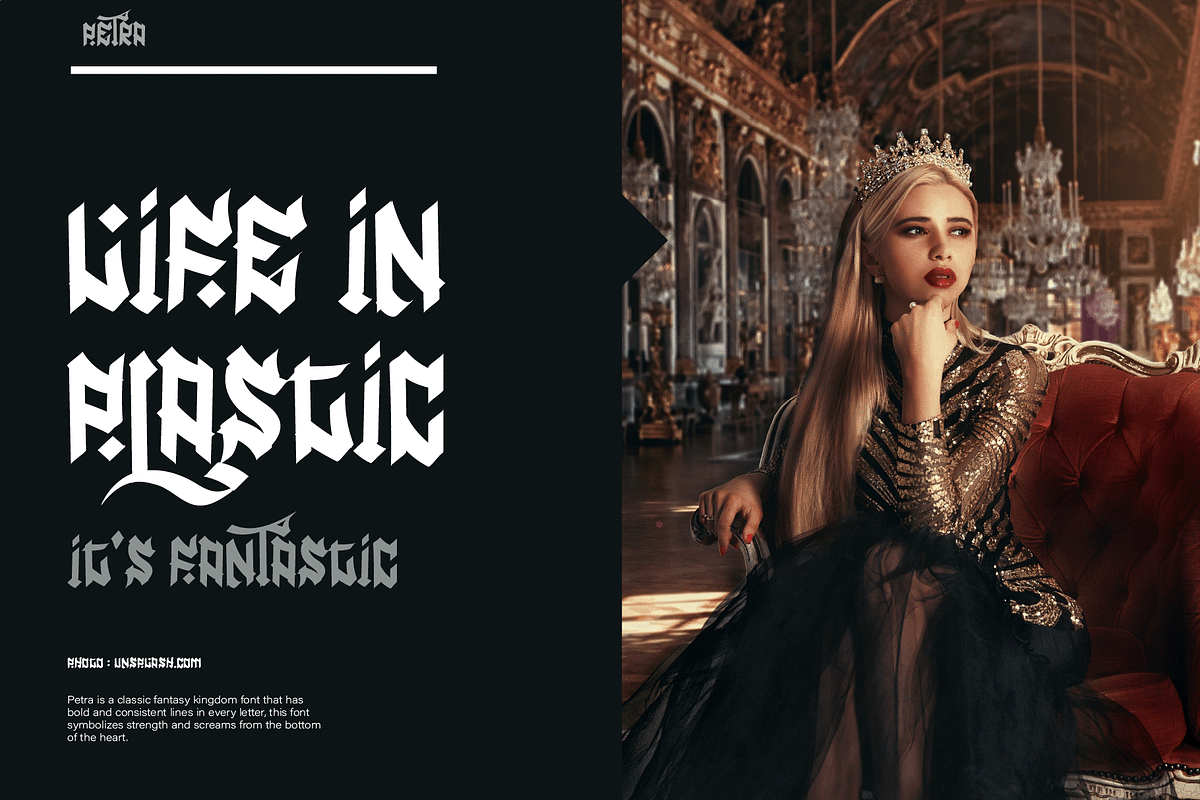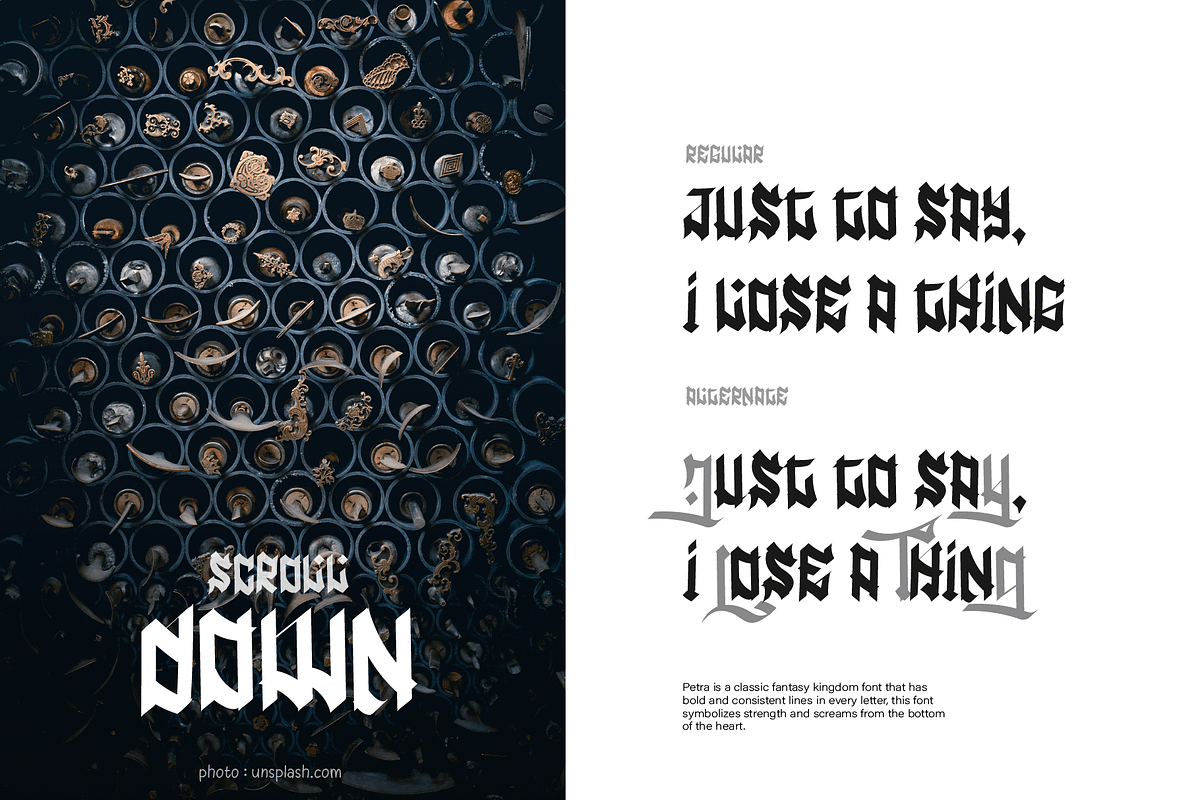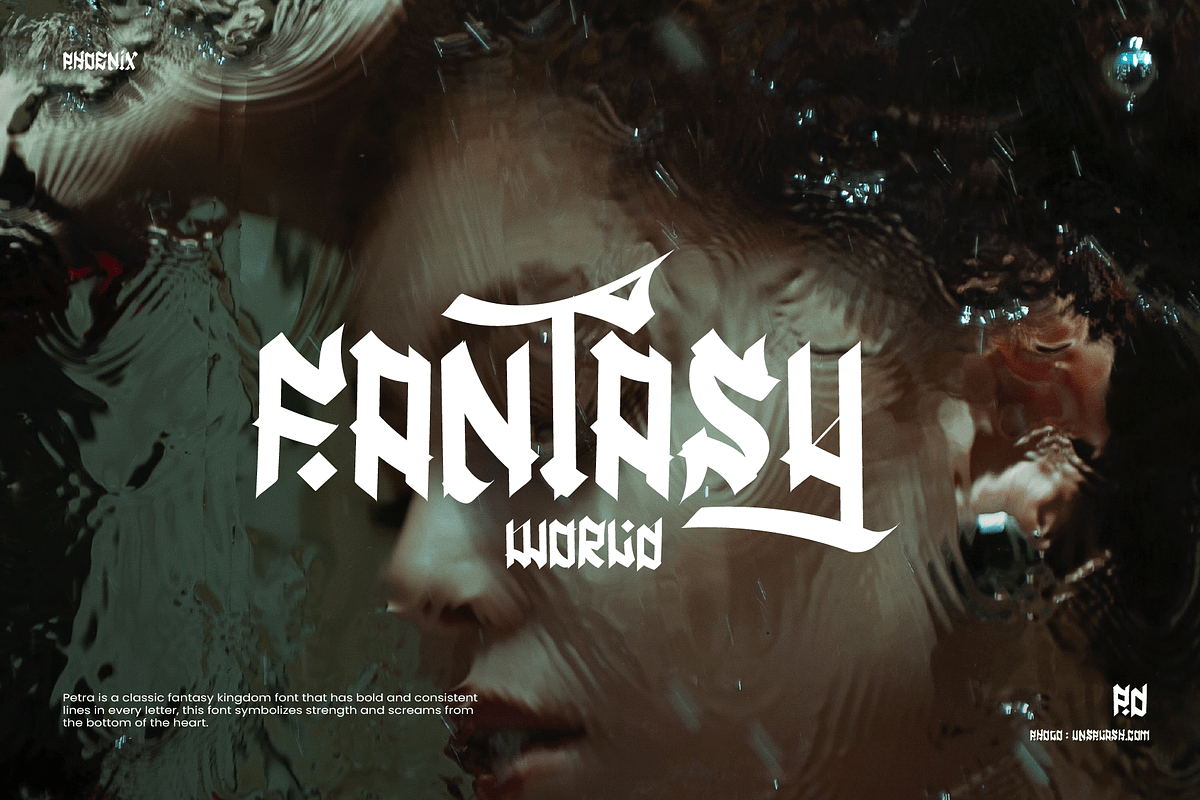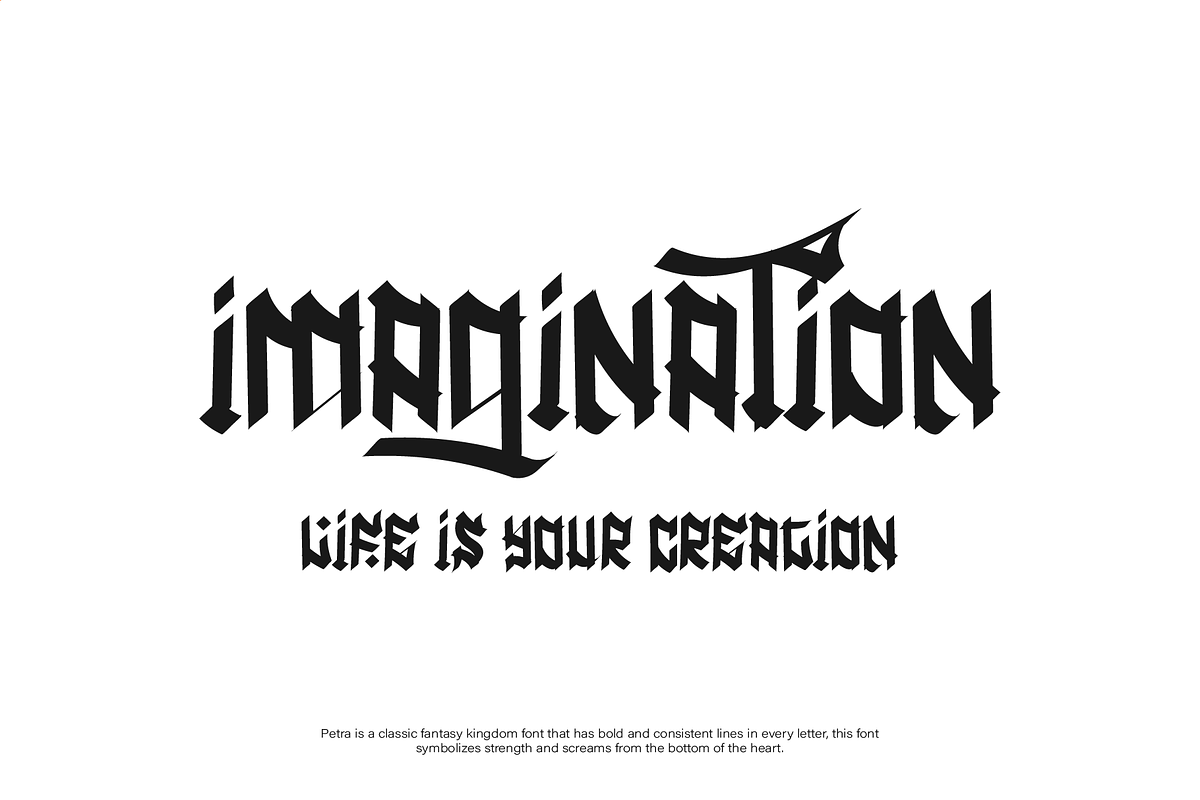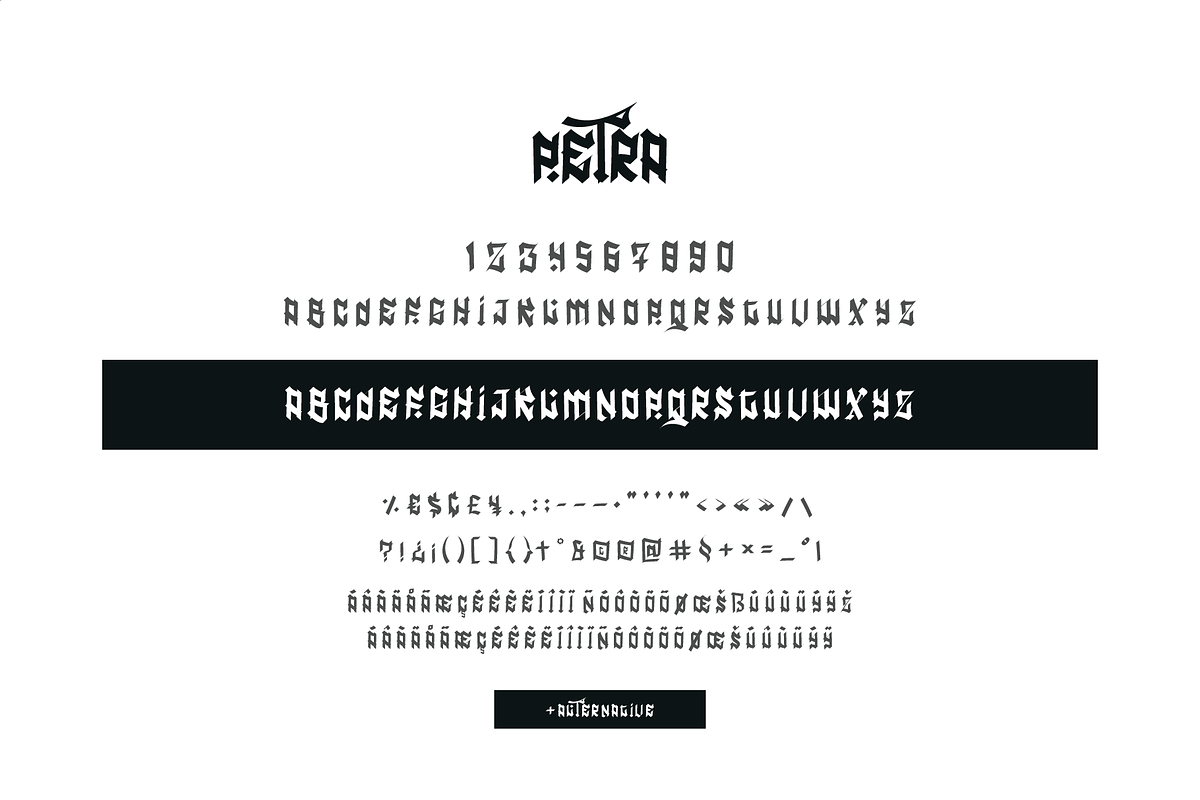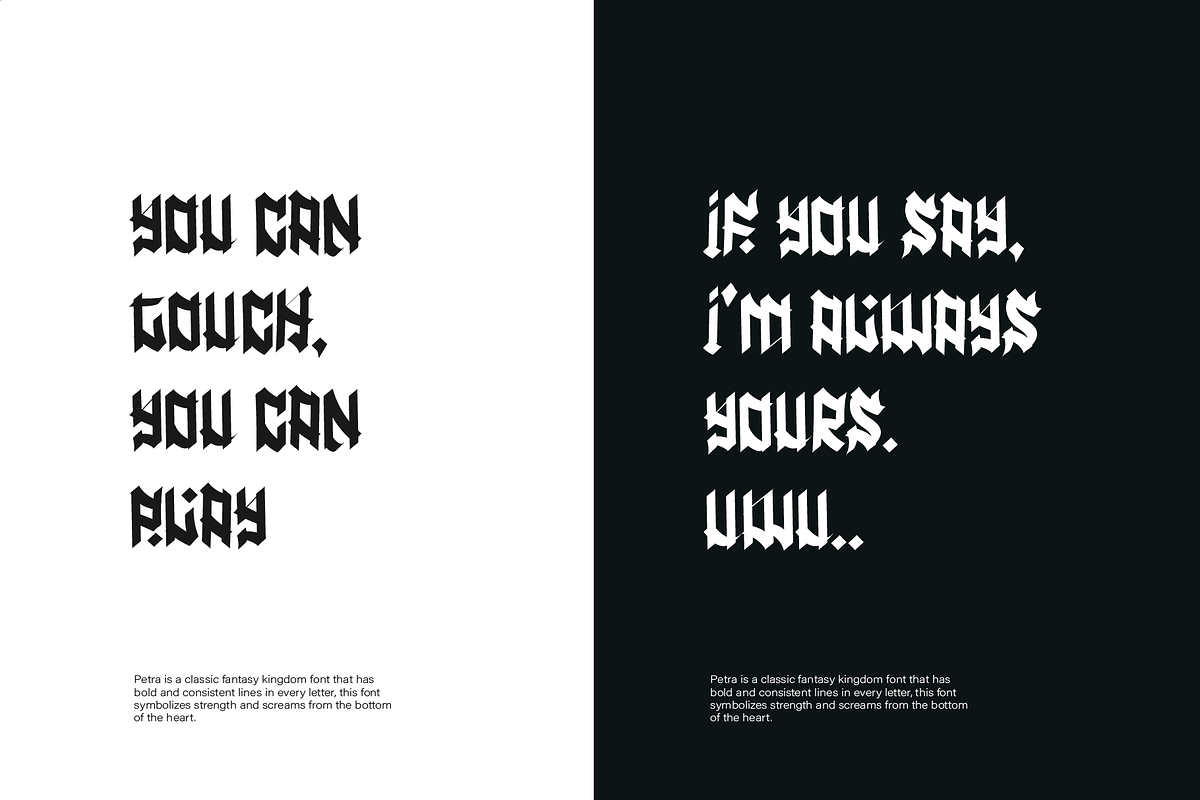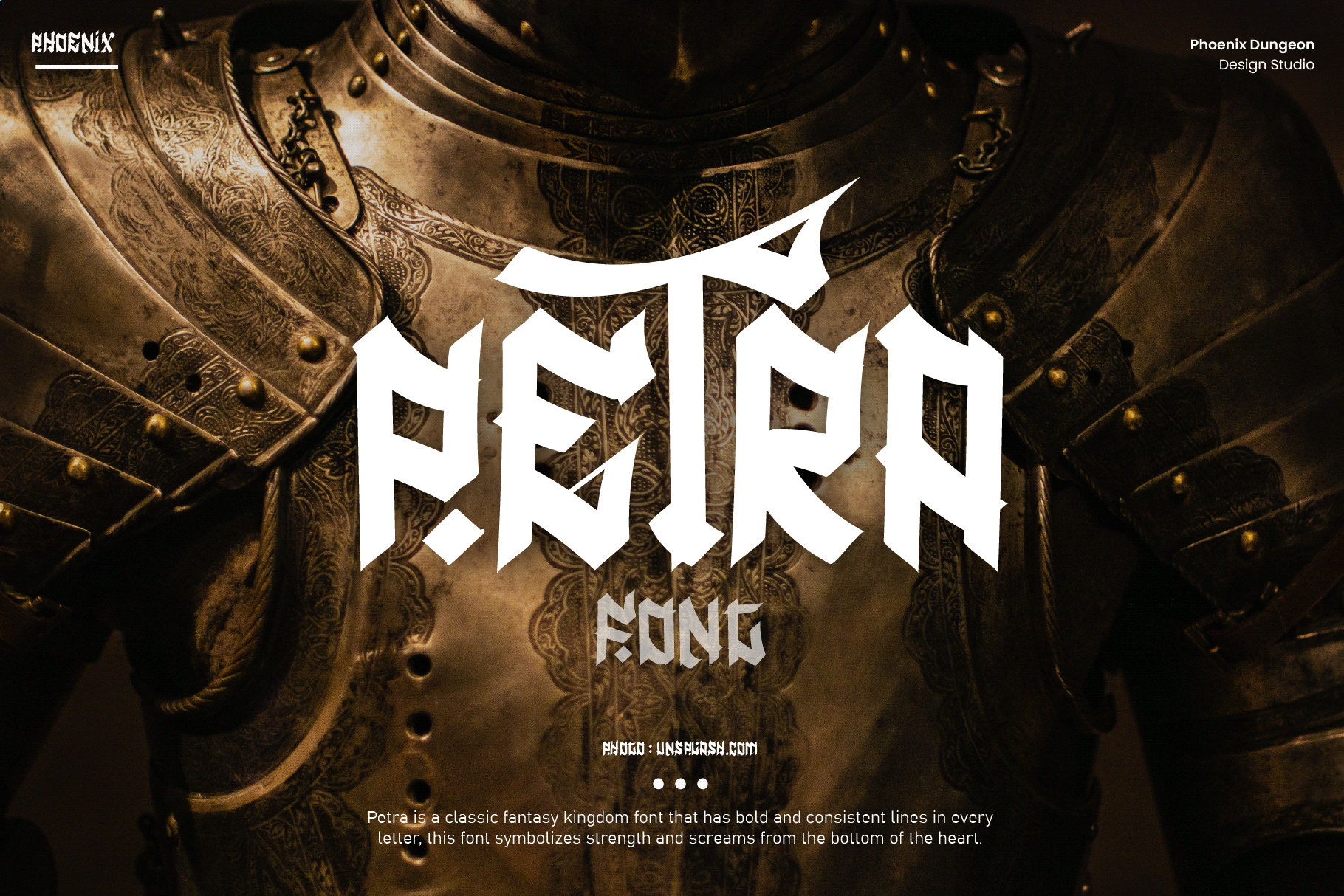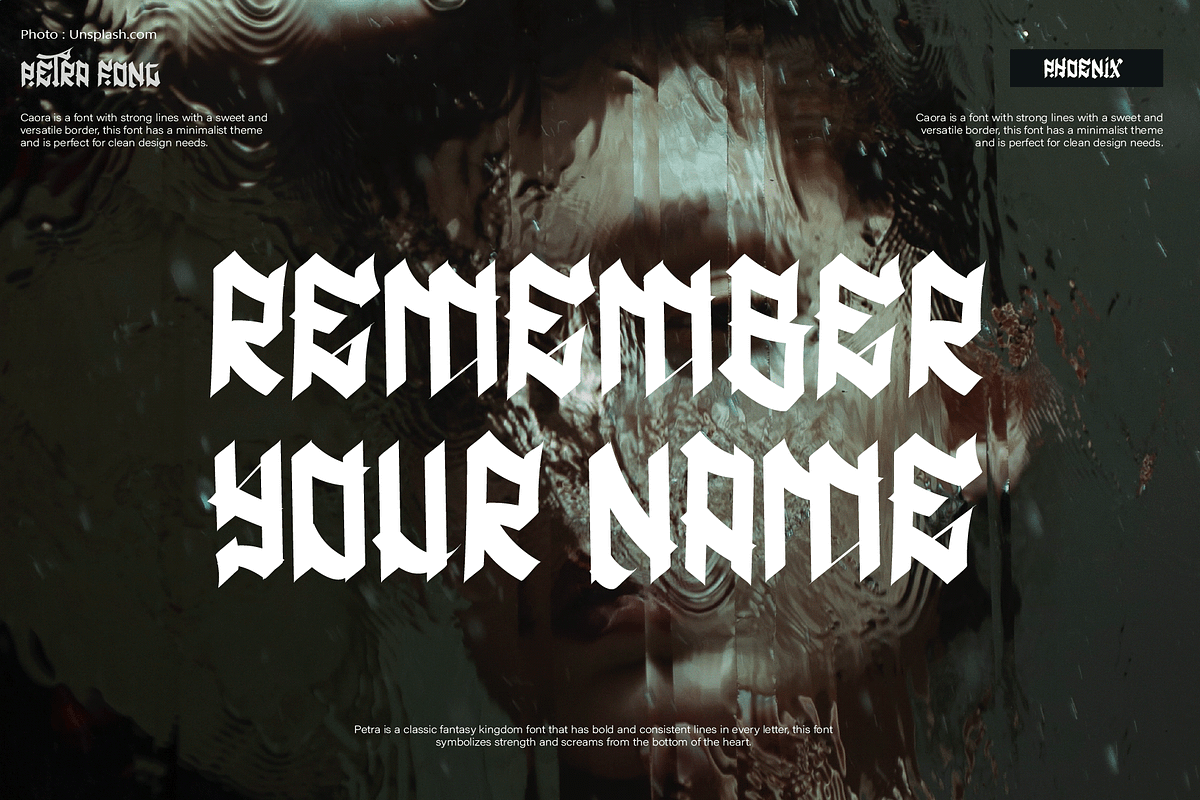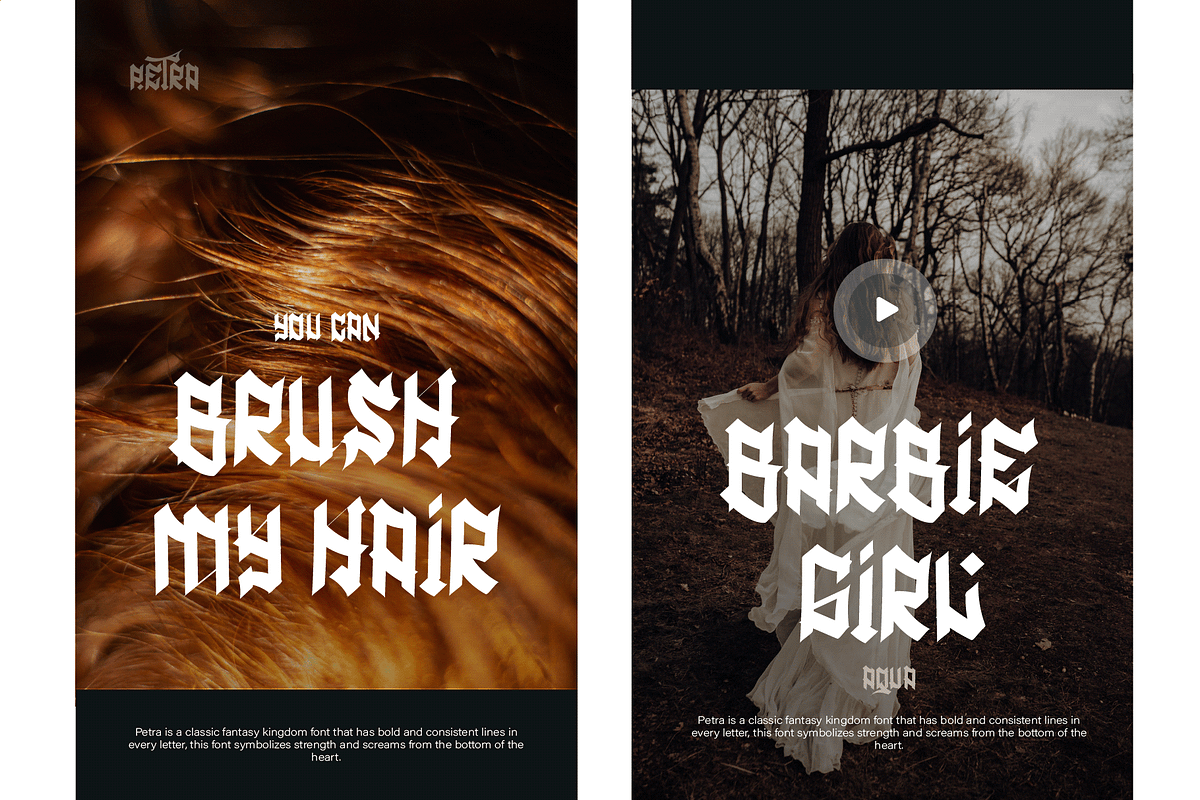
Petra Font
Petra is a classic fantasy kingdom font that has bold and consistent lines in every letter, this font symbolizes strength and screams from the bottom of the heart.